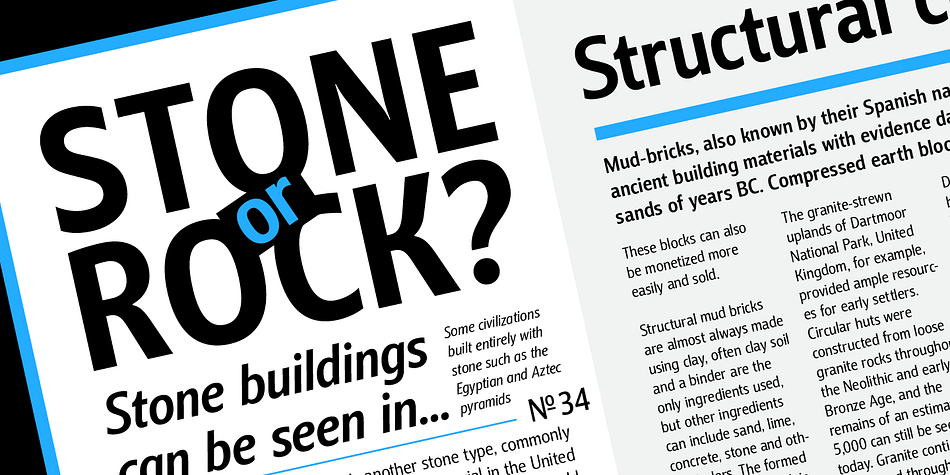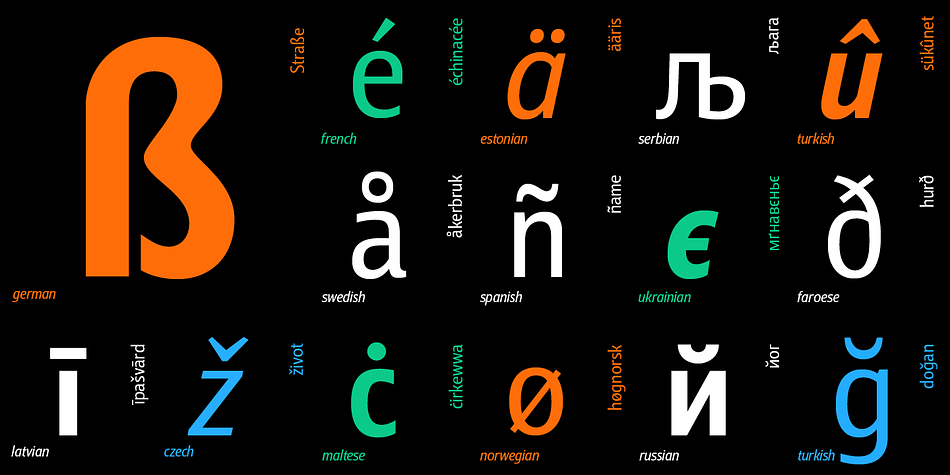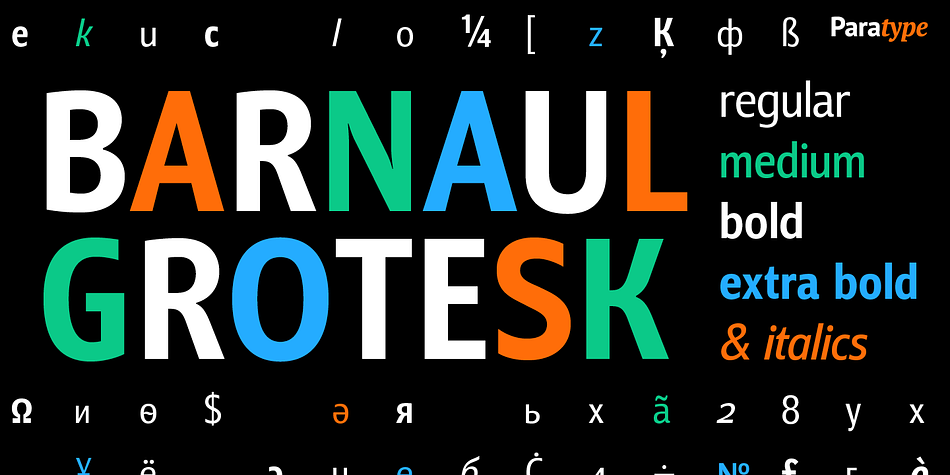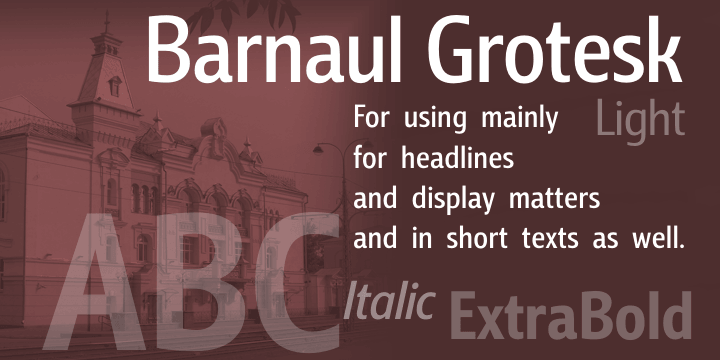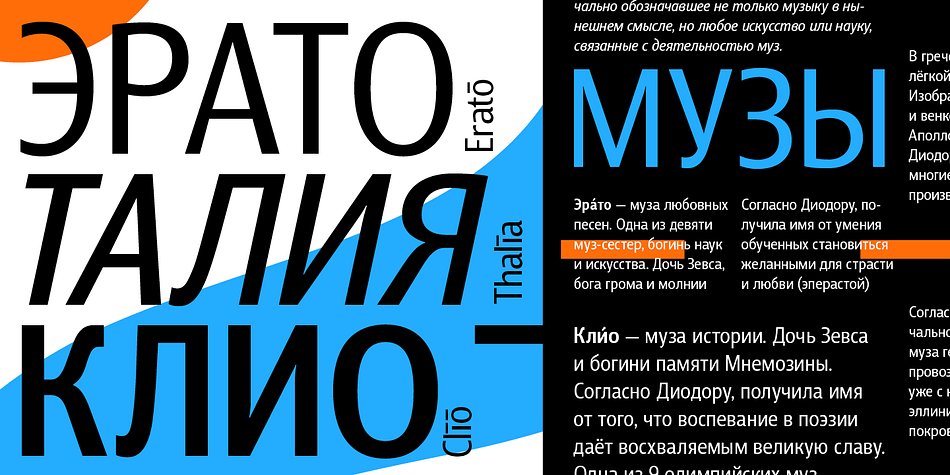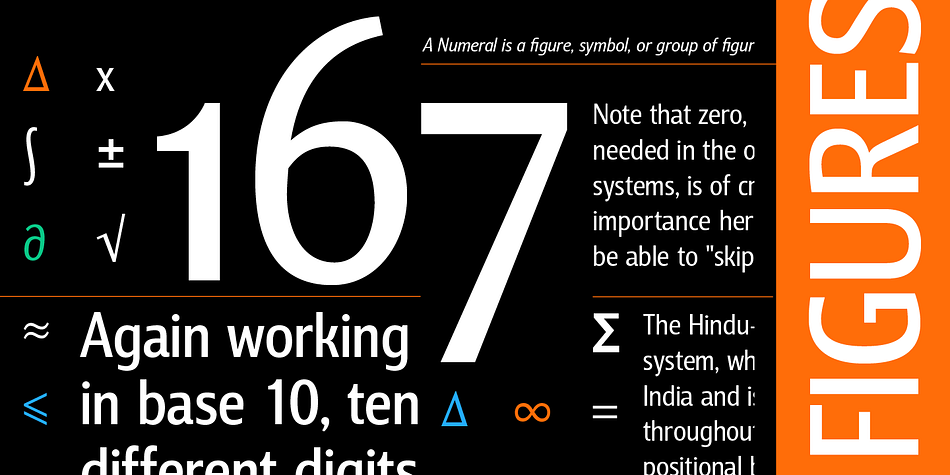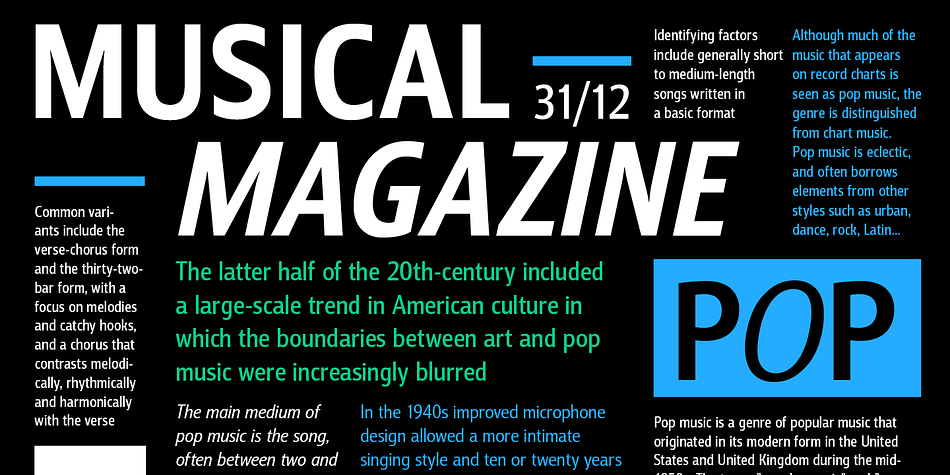
Designed by Natalia Vasilyeva, Barnaul Grotesk is a sans serif font family. This typeface has eight styles and was published by ParaType.
A text sans serif type family of 8 styles was designed by Natalia Vasilyeva and released by ParaType in 2007. It has narrow proportions, open shapes and can be used in a wide variety of applications — for text setting, for headlines and for display matters.
Designer | Natalia Vasilyeva |